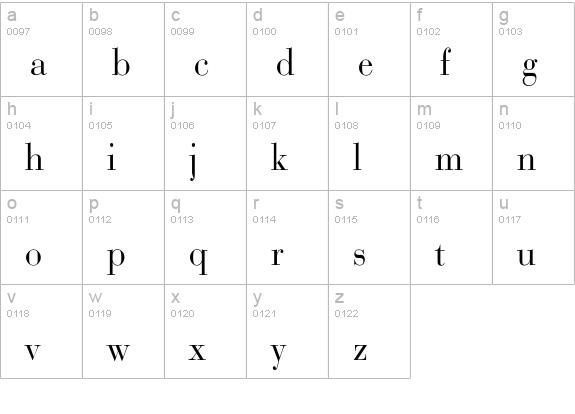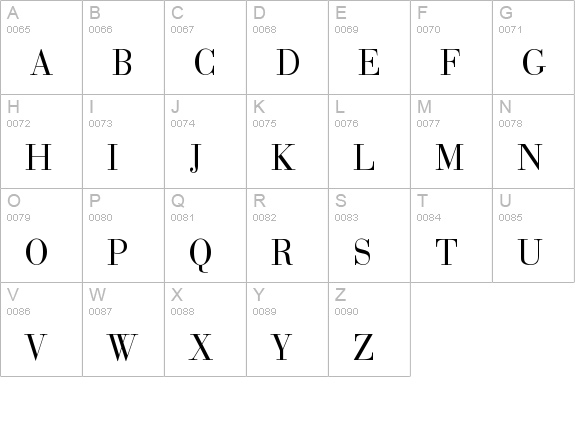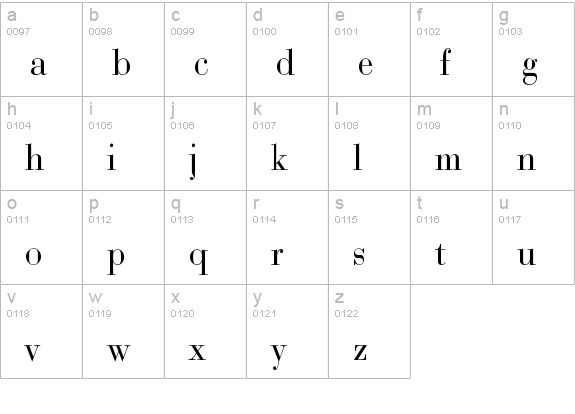
RothniCnd-Norma Font Details
RothniCnd-Norma font is a stunning typeface that exudes elegance and sophistication. With its clean lines and modern aesthetic, this font is perfect for a wide range of design projects, from branding to editorial design. The sleek look of RothniCnd-Norma font makes it a versatile choice for both digital and print applications. The best part? RothniCnd-Norma font is completely free to download at FontsMarket.com. This means you can elevate your designs without breaking the bank. Whether you're a seasoned designer or just starting out, RothniCnd-Norma font is a must-have addition to your font collection. Don't miss out on this fantastic opportunity to enhance your projects with this elegant and stylish typeface.